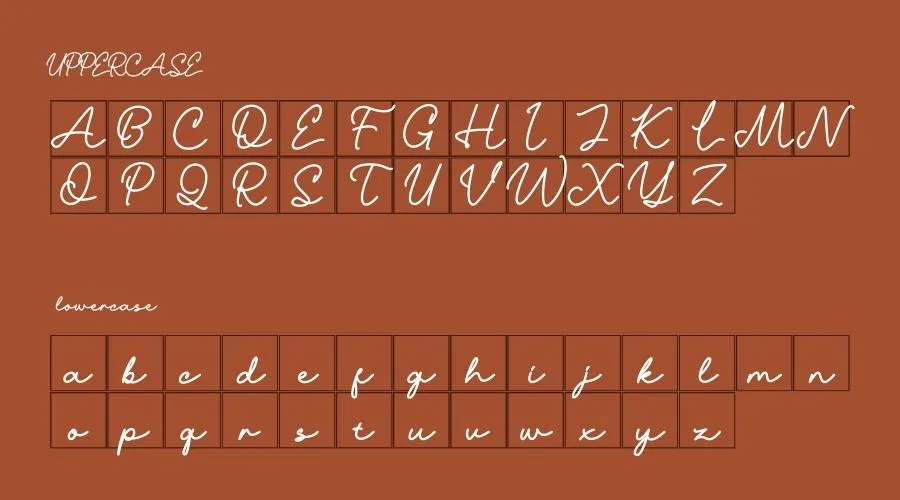
Southern Font
About Southern Font
Due to its stylish and handwritten characters of the alphabet, it is gaining popularity day by day and is suitable for all your fun tasks and methods.
This font was published through Monotype corporation and contains up to 50 different glyphs with at least 150 unique characters such as small letters, capital letters, digits, symbols, signs, and punctuations.  Yan utilizes its online generator tool for converting all your simple and normal textures into stylish ones with modern shapes.
This font has amazing pairing quality, you can pair it with Tersely Font and make attractive projects. It is also suitable for CSS, Cdn, and adobe photoshops.
As a developer, you should choose the right font for your projects, and this outstanding typeface is perfect for all your fun designs, and methods. You may use it for T-shirt designs, wedding-related headings or titles, and jacket designs.
This font includes multiple types of weights like Regular and Bold. From Ultra-Light to Black, there are many different weights in each design.
Name Southern Font
Designer Aditya Rezki Apriyasi
Style Handwritten
• Southern Regular
• Southern Bold
• Southern Italic
What type of font is Southern Font?
The Southern Font has a stylish and attractive texture look appearance for visitors, you may utilize it for multiple types of projects where you want to use it.
Who is the most similar font to the Southern Font?
The most similar font to this typeface is Masterplan FontIt is suitable for all your secret and commercial purposes.
Who designed the Southern Font?
It was developed by a famous graphic designer named Aditya Rezki Apriyasi and looks like a handwritten typeface family.